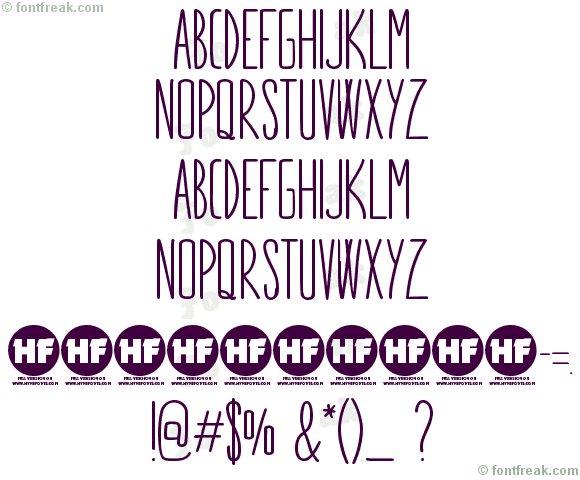
STARGAZER demo Bold
About STARGAZER demo Bold
STARGAZER demo Bold is a striking display font designed by Guilhem Greco and released by Hero Fonts. This unique typeface falls into the category of decorative fonts, characterized by its playful yet bold appearance. The font features a consistent stroke weight that lends it a robust presence, while the slight contrast in some letterforms adds visual interest without compromising readability. The spacing between characters is well-balanced, ensuring that each letter stands out, making it an excellent choice for various design projects.
This font is particularly well-suited for applications such as wedding invitations, where its decorative flair can enhance the romantic theme. Additionally, it works beautifully on movie posters, capturing attention with its bold style and making titles pop. Restaurant menus can benefit from STARGAZER demo Bold's unique character, adding a modern touch to the dining experience. Content creators looking to make their social media posts stand out will find this font an excellent choice for eye-catching graphics. Graphic designers will appreciate its versatility and ability to convey a fun yet professional message.
What sets the STARGAZER demo Bold font apart is its blend of creative flair and functionality. Its bold design captures attention while remaining versatile enough for various uses. Whether you’re crafting a unique wedding invitation or designing an engaging social media post, this font is a fantastic choice. Explore the possibilities with the STARGAZER demo Bold font free download and make your projects shine.